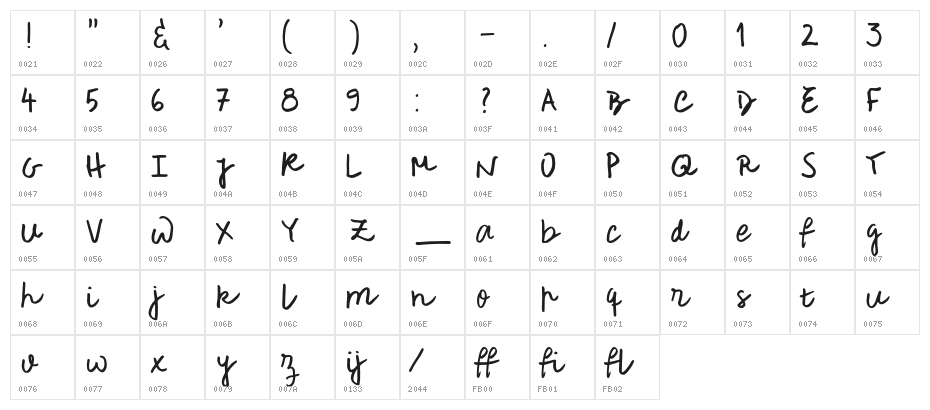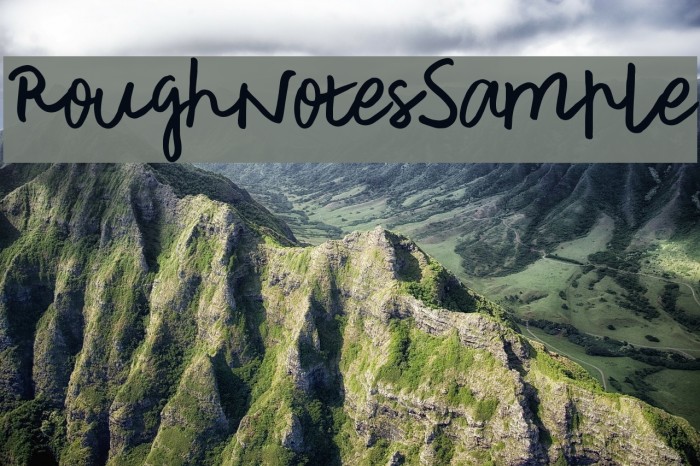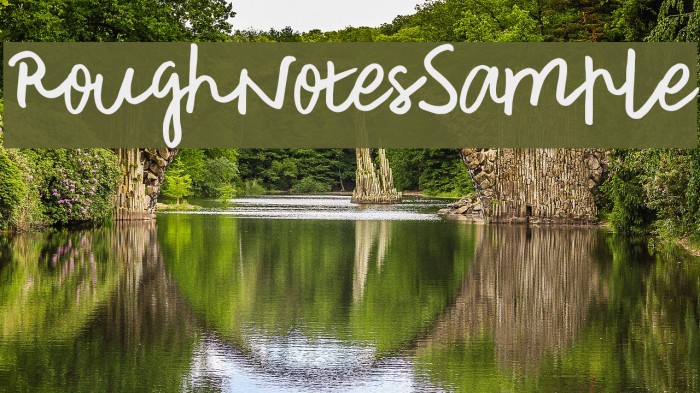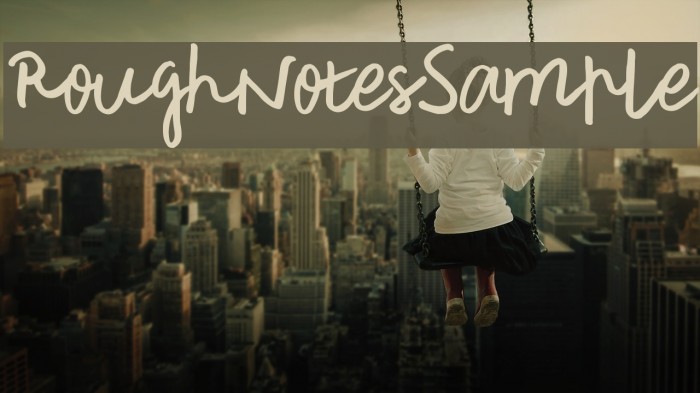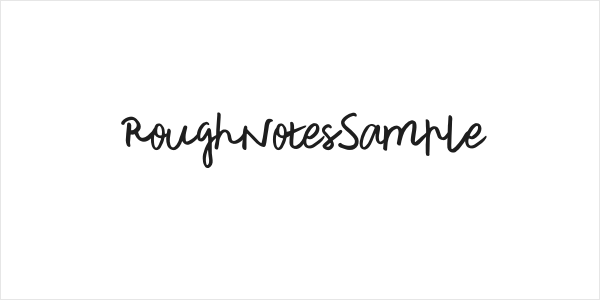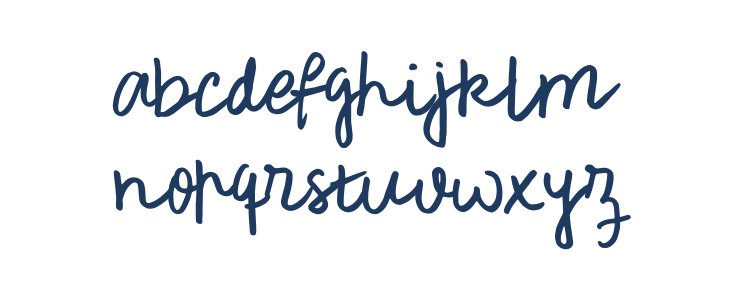
RoughNotesSample Font
RoughNotesSample Description
This font exudes a casual and handwritten style, characterized by its fluid and organic strokes. The letters are slightly slanted, giving an informal and personal touch. The uppercase and lowercase letters maintain a consistent flow, with rounded edges and varying stroke widths that mimic natural handwriting. The numbers and special characters follow the same style, ensuring uniformity across the font. This font is ideal for projects that require a personal, approachable, and friendly appearance. Its handwritten nature makes it suitable for creative and artistic endeavors.
| Overall Style | Casual, Artistic |
| Use Case | Creative projects, Personal notes, Invitations |
| Proposed Projects | Ideal for personal notes, creative projects, invitations, and artistic designs. |